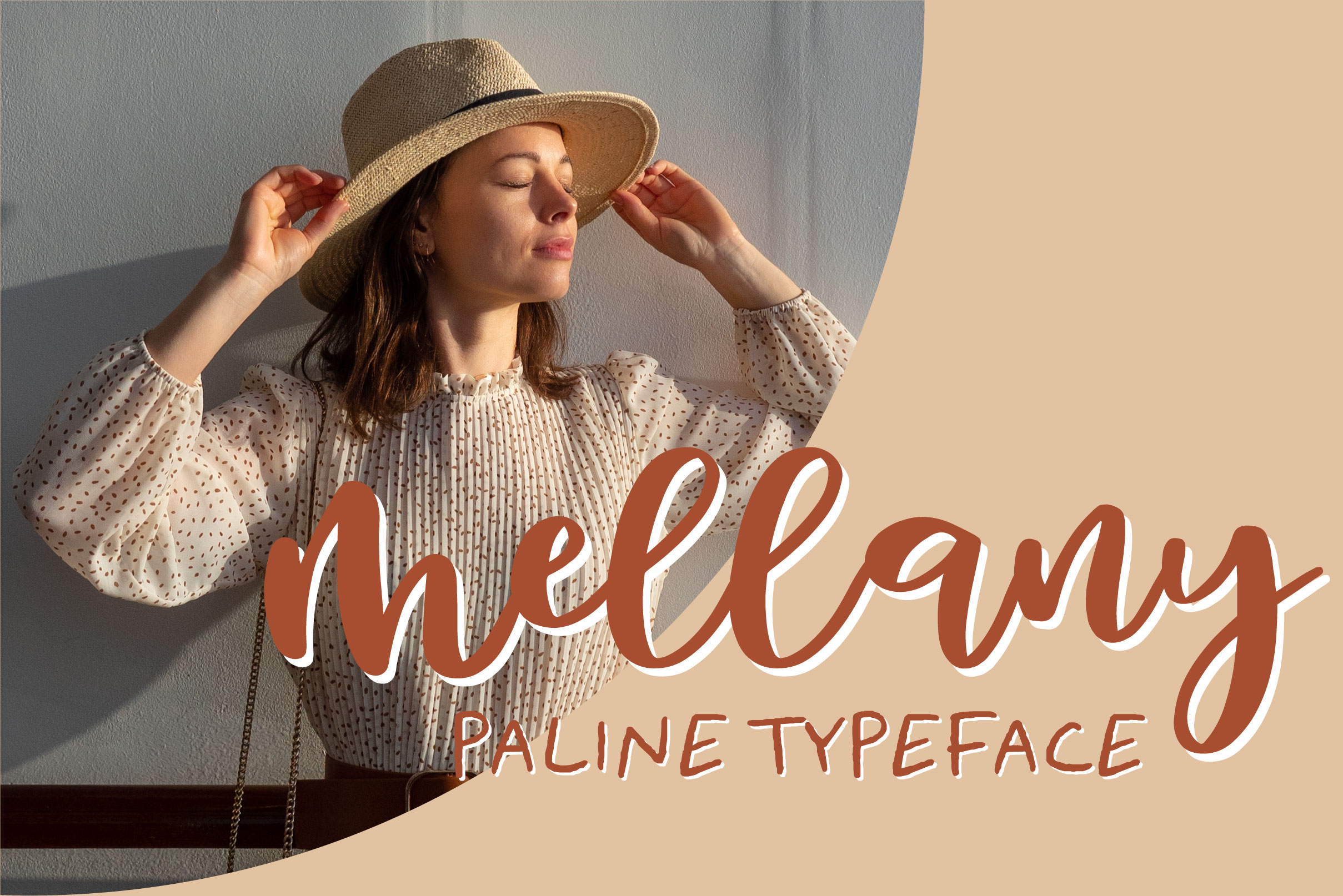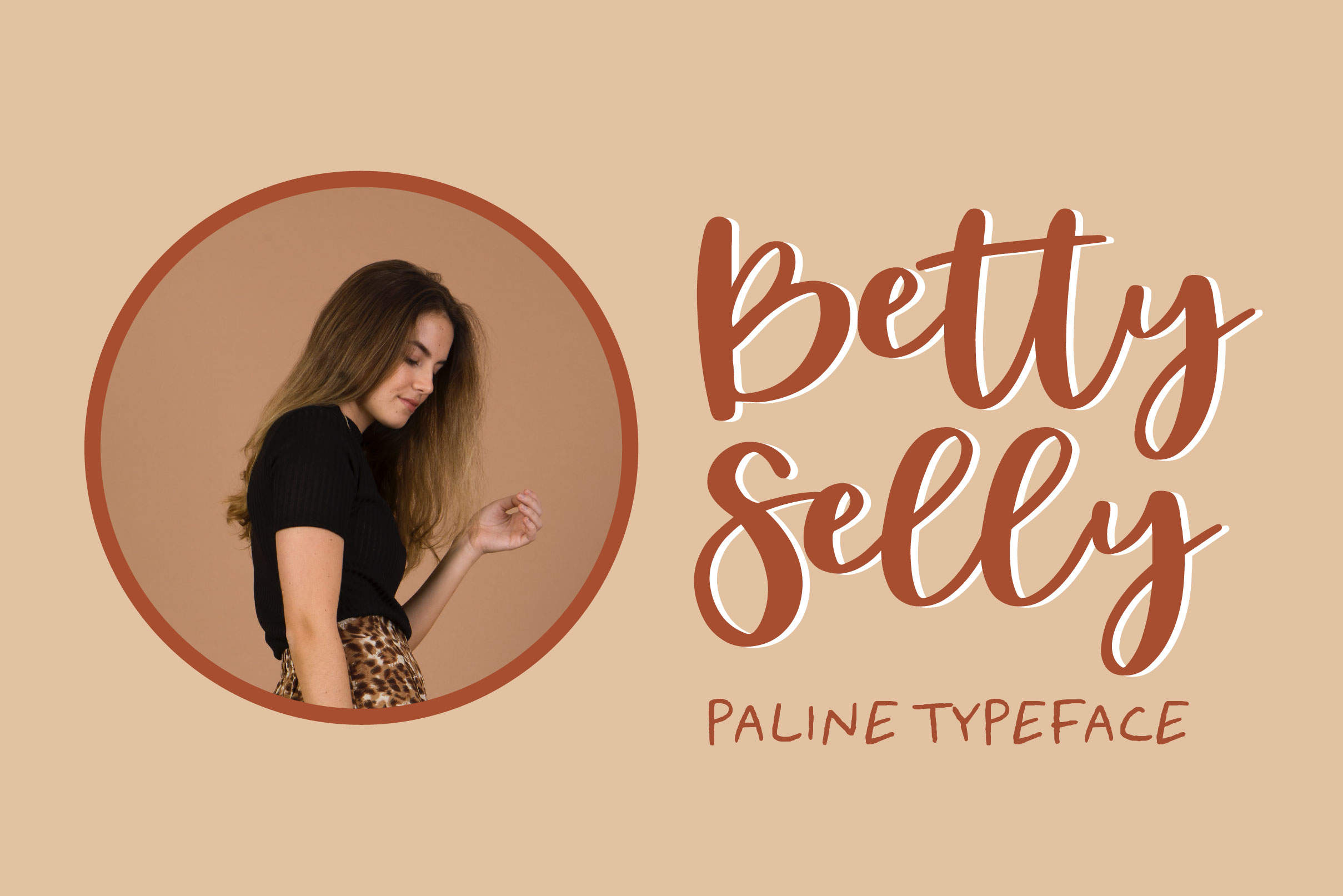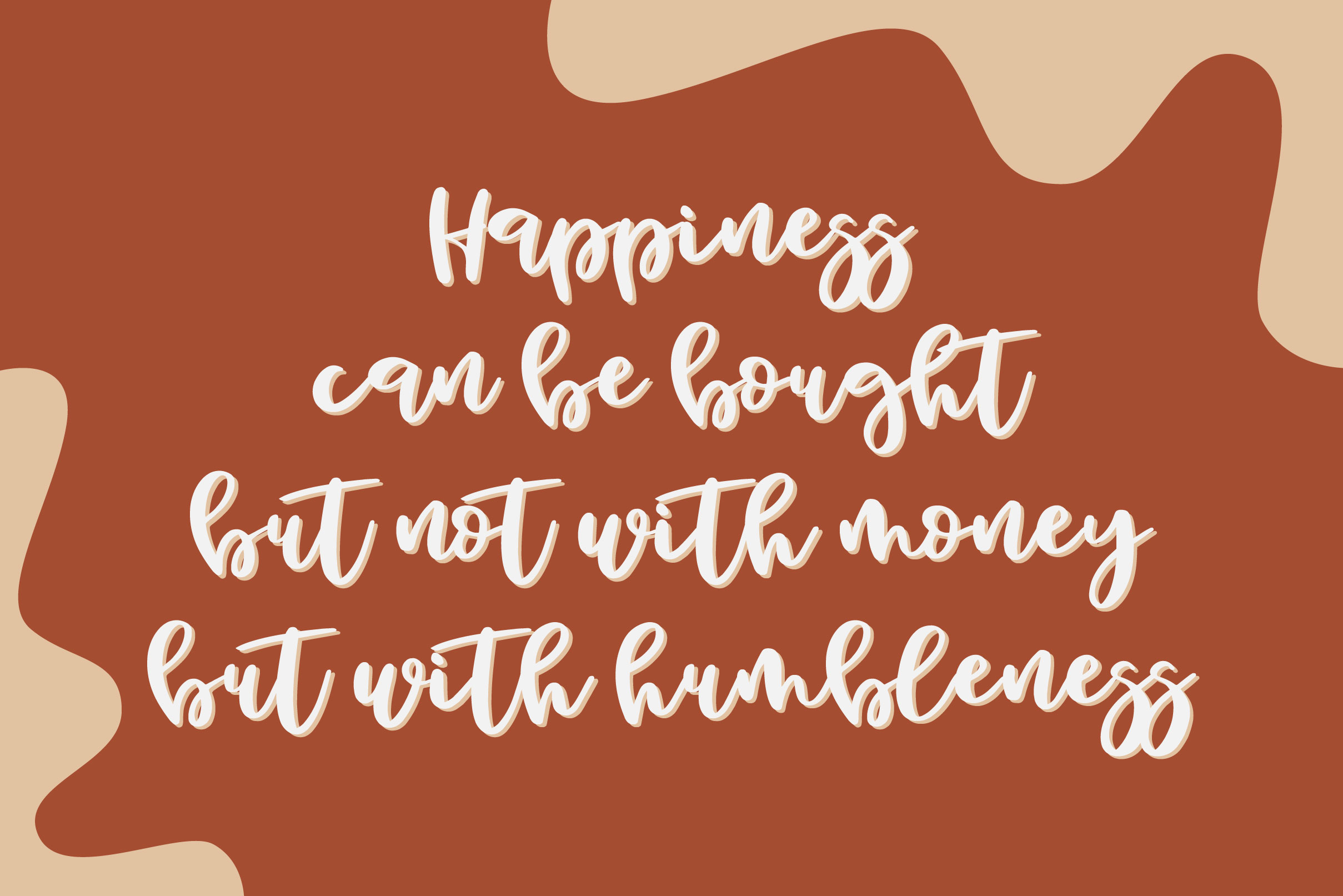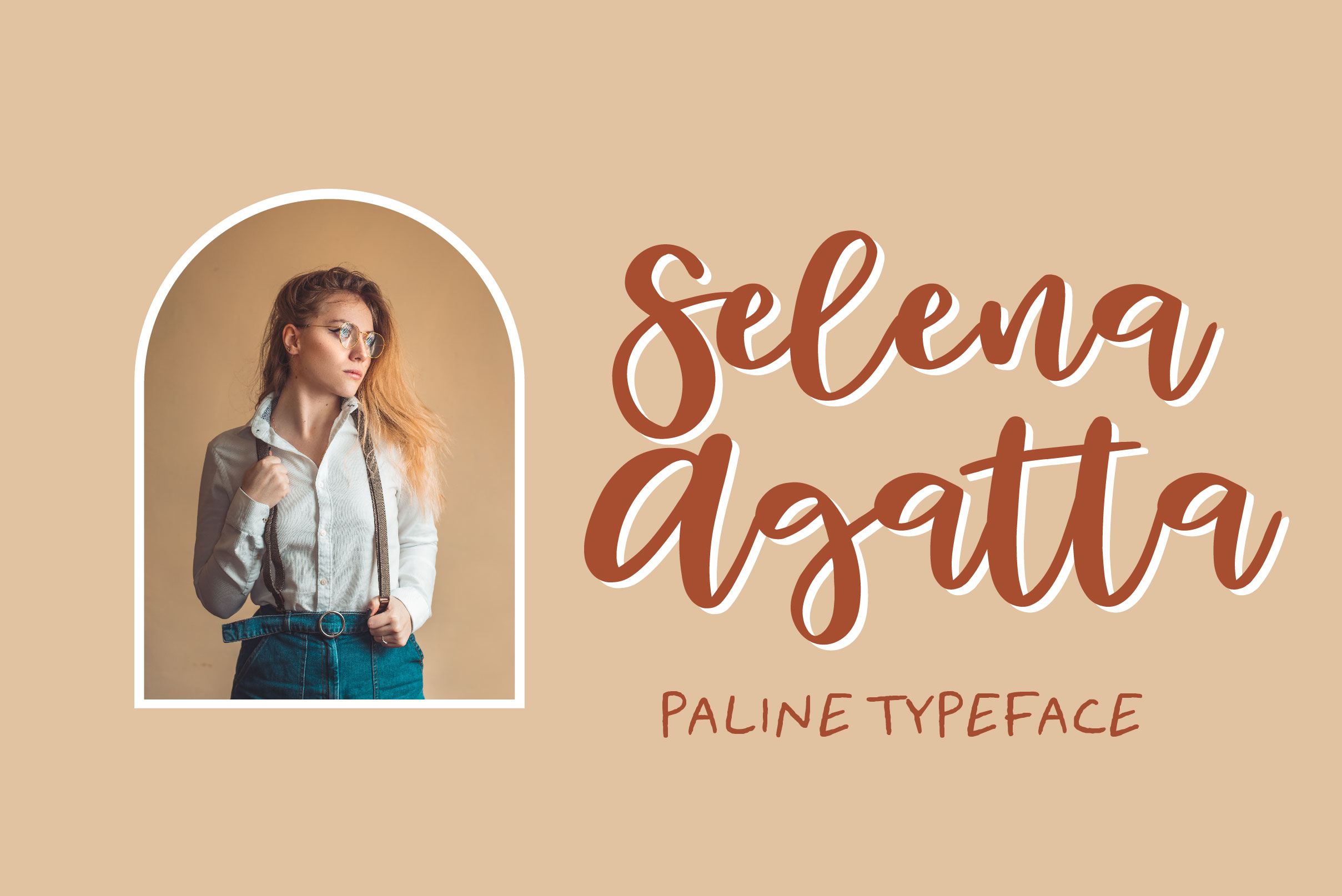
Peline Font
Peline Script Font is an elegant and authentic handwritten font. The font is suitable for any branding project like logo, t-shirt printing, e-sport, and many more. It will look outstanding in a wide range of contexts.
– Uppercase, Lowercase, Numeral & Punctuation
– Alternate Letters, Ligature & Swash/Tail